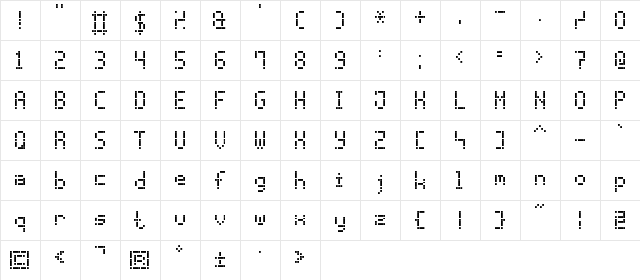
LCD-7 Regular
| Foundry | Style-7 |
| Designer | Sizenko Alexander |
Design Context for LCD-7 Typeface
LCD-7 offers clean, dependable letterforms without strong stylistic allegiance, making it a practical choice for designers who need flexibility.
Pro Tip: Pair LCD-7 with a font of contrasting weight or personality to build a more expressive typographic hierarchy.